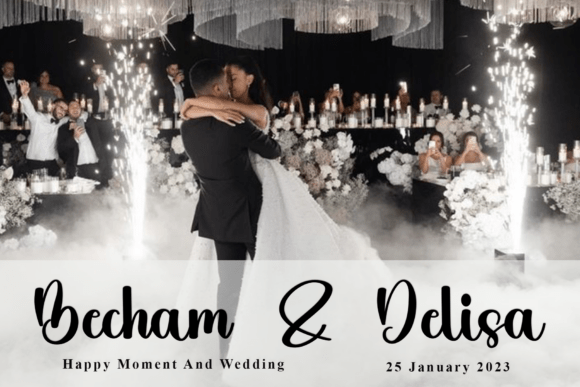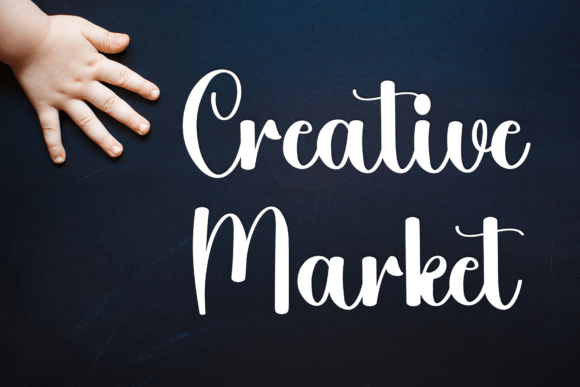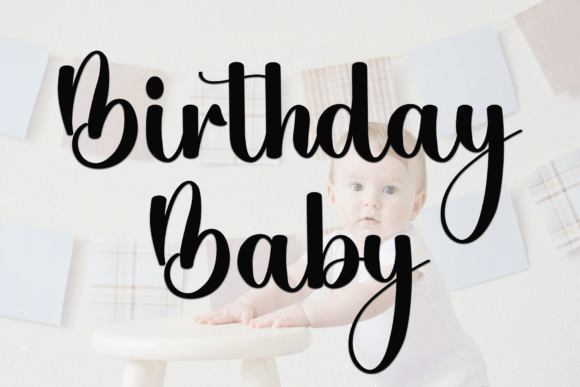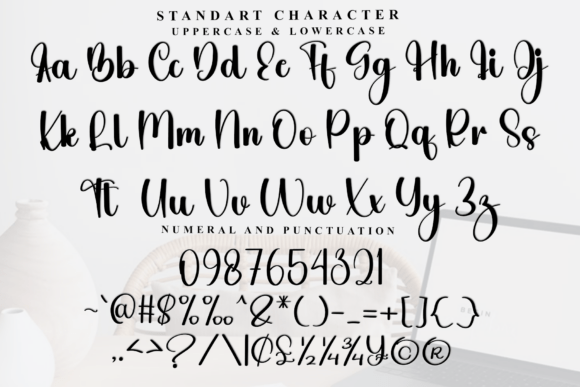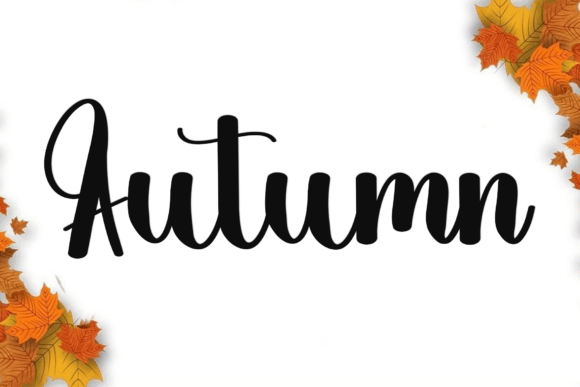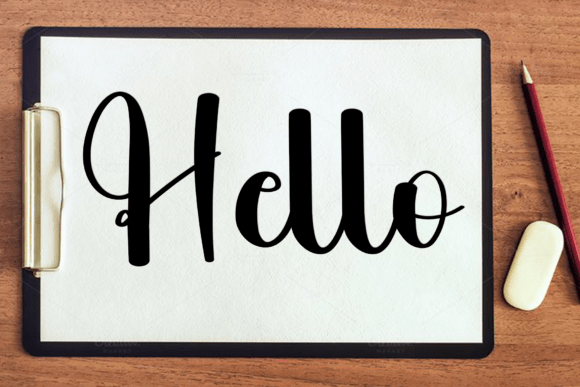
Unlock the Power of Whimsy: Discovering Berry Font
As a designer, you know that sometimes it’s the smallest details that can make all the difference in a project. Like the moment when a new font sparks an idea, and suddenly your entire design takes on a new life. It’s a feeling that’s hard to describe, but it’s one that every creative professional has experienced at some point. And that’s exactly what the Berry Font is designed to evoke – a sense of wonder and curiosity.
Berry Font is a beautiful and eye-catching typeface that’s perfect for designers who want to add a touch of whimsy to their projects. With its soft, unique strokes, this font is ideal for a wide range of creative works, from design projects to crafts and more. Whether you’re working on a digital or print-based project, Berry Font is sure to enhance your designs and make them stand out to your audience.
Berry Font Key Features
- Font Style: Script Font
- Unique Characteristics: Hand-drawn design, elegant and playful feel, suitable for creative and artistic applications
Berry Font Review
Overall, I found the Berry Font to be a visually appealing and unique font option. It has a certain charm that can add a touch of whimsy to any design project. ✨ I appreciate the font’s playful nature and its ability to evoke a sense of fun and lightheartedness.
- The font’s bold and vibrant color palette is perfect for creating eye-catching headlines and titles.
- The irregular letterforms add a touch of personality to the font, making it stand out from more traditional serif or sans-serif fonts.
- The font’s versatility allows it to be used in a variety of design contexts, from logos and branding to digital products and print materials.
- The font may be too playful for certain design projects, such as financial or technical applications, where a more serious tone is desired.
- The font’s irregular letterforms may not be suitable for longer blocks of text, as they can be difficult to read in certain contexts.
- The font may not be as scalable as other font options, as its bold and playful nature can be lost when viewed at smaller sizes.
- The font’s lack of bold weights can make it difficult to create a clear visual hierarchy in design projects.
- ⚠️ The font’s overall design may not be suitable for projects requiring a high level of professionalism or formality.
While the Berry Font has its limitations, I believe it can be a valuable addition to any designer’s toolkit. Its unique personality and versatility make it a great option for designers looking to add a touch of whimsy to their projects. With careful consideration of its limitations, the Berry Font can be a great choice for a wide range of design applications.
Berry Font is ideal for:
– Food and beverage branding
– Children’s products and packaging
– Whimsical and playful designs
– Creating a sense of nostalgia and warmth